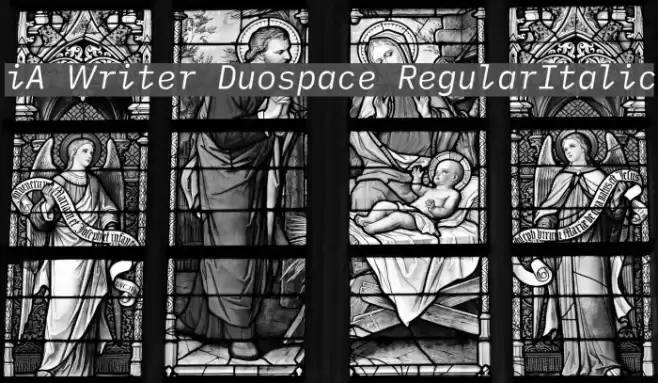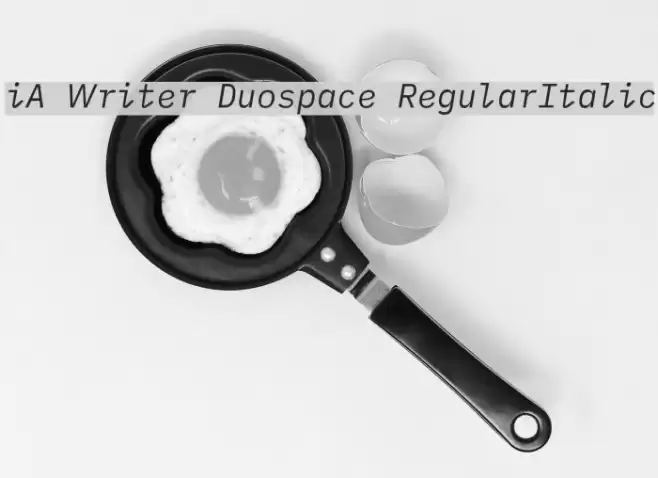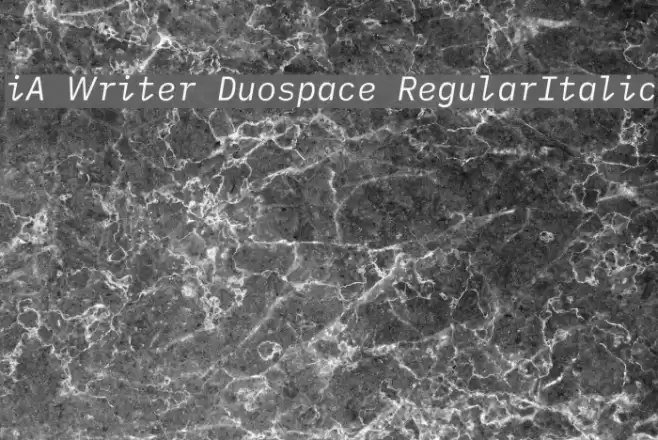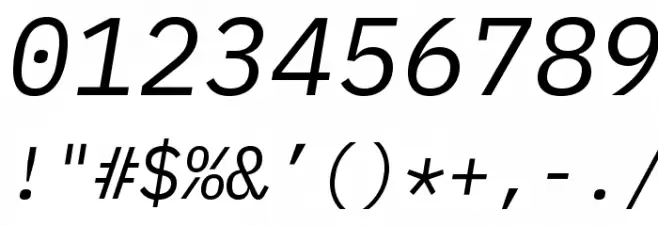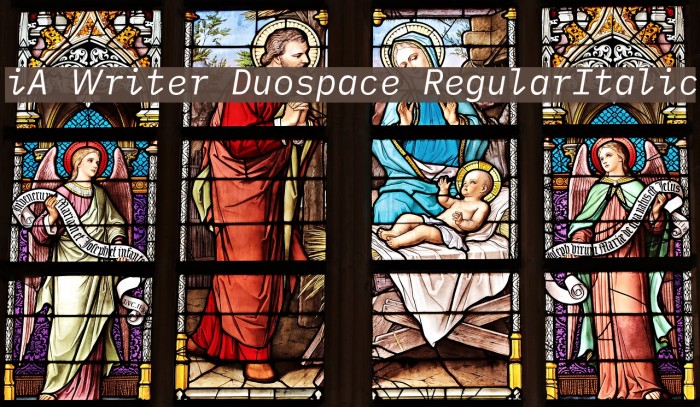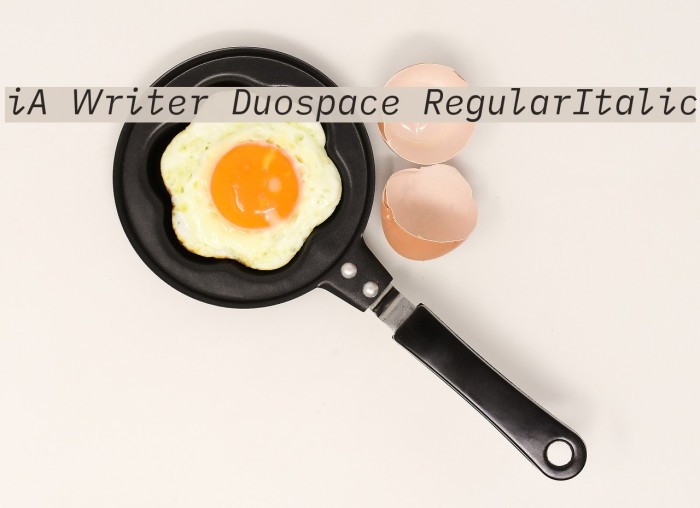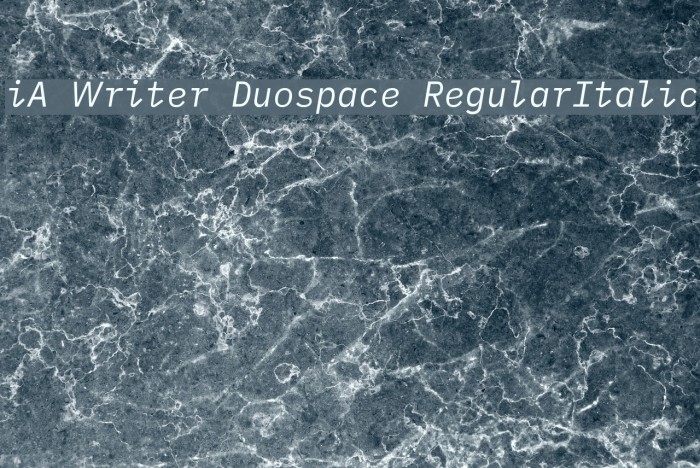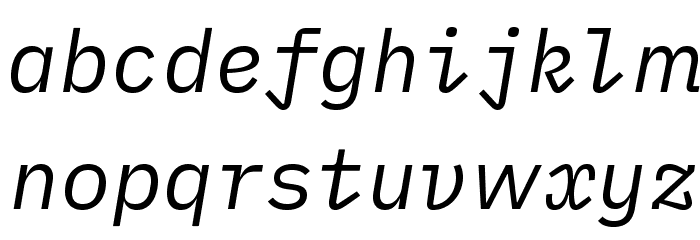
iA Writer Duospace RegularItalic Font
iA Writer Duospace RegularItalic Description
This typeface presents a clean and modern aesthetic with a slight slant, giving it an italicized appearance. The characters are well-defined with a consistent stroke width, contributing to a balanced and harmonious look. The font maintains a monospaced design, ensuring each character occupies the same amount of horizontal space, which is ideal for coding and technical documentation. The overall style is straightforward yet elegant, making it suitable for both professional and creative applications. The spacing between characters is uniform, supporting readability and clarity. Its simplicity and precision make it a versatile choice for various design projects.
A modern, monospaced italic typeface with clean lines and uniform spacing from Uncategorized fonts.
- Proposed Projects: Ideal for coding, technical documentation, minimalist design projects, and digital interfaces.
- Use Case: Coding, Technical documentation, Digital interfaces